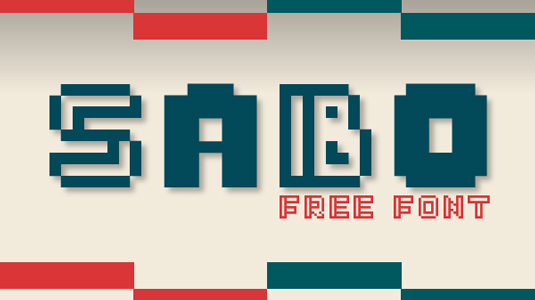
46 free retro fonts
Add age, texture and depth to your designs with the best free retro fonts that won't cost you a penny.
Great free retro fonts have the ability to transport audiences back in time. With the right font, you can add age, texture and depth to your designs so it's crucial to choose a typeface that reflects the era you're representing.
In this post, we've chosen some of our favourite retro-style font designs. They won't cost you a penny but will add untold value to your retro projects.
Article continues below01. Mexcellent Font Family
Mexcellent Font Family was inspired by the 1968 Mexico Olympics. It's a trilinear display font that sings of the era and packs a visual punch. The updated version has redrawn glyphs, better spacing, better kerning, more languages, math symbols, fractions, and more. Get the regular and 3D styles for free commercial and personal use.
02. Stiff Staff
This decorative free font takes us back to Germany or Russia at the beginning of the 20th century. Designer Borislav Petrovs' use of geometry channels constructivism and austere industrial modernism, whilst still feeling somewhat video game-ish.
03. Gradientico
If you're keen to nail the look of early 1990s desktop publishing, give Vladimir Nikolic's Gradientico a try. It's a fine-looking serif, bought to life by a splendidly scratchy halftone gradient that looks for all the world like it's just inched out of a dot matrix printer after a long session with Pagemaker. It comes in regular and italic versions, and it's free both for commercial and personal use.
04. Haike
Remember when computer fonts were supposed to look like this? Inspired by Moore Computer – a 1968 font designed for use with automatic cheque and document reading equipment – Haike, by Otto Maurer Design, is a fabulously retro vision of the future and comes in nine weights for all manner of uses. It's free for personal use; for commercial use you'll need a licensed version, which comes with extra Opentype features.
05. Haarlem Deco
Haarlem Deco is described by its creators, Fontdation, as a classic-retro-vintage-all-caps-semi-condensed-sans-serif typeface with an art-deco touch. Inspired by old Euro-American signage and advertising, it's available as a free demo version with limited characters; you can get the full version with italics, multilingual characters and more from Fontdation for just £13.
06. West Side
Inspired by handmade poster designs and illustrations from the 1980s, with maybe just a hint of Saul Bass, West Side is a block-styled, handcrafted display font created by Artimasa Studio. It's big and bold with sharp edges, and is free for both personal and commercial use.
07. Palm Canyon Drive
You can get a free sample of premium monoline script Palm Canyon Drive – designed by Amy Hood, co-founder of Hoodzpah Design Co, in conjunction with retro and vintage design elements crafter RetroSupply – by signing up to the RetroSupply newsletter. (You'll get a bunch of other retro and vintage-themed design elements, too.)
Inspired by mid-century Southern California, the retro font is perfect for adding some old-school west coast goodness to your designs. It’s as comfortable on a Tikki bar matchbook cover as it is on a Hollywood movie poster, and the sample weights are free for personal use.
08. Billionaire Medium Grunge
For an art deco look that's pleasingly rough around the edges, Billionaire Medium Grunge is just the ticket. It's just one of six fonts that make up the full Billionaire typeface by JumboDesign, and you can pick it up for free from Deeezy to give your work a bit of slightly faded sophistication.
09. Noir
Add a touch of elegance and style to your designs with this beautiful retro font Noir, by designer Matthias Guggisberg.
10. Frontage Condensed (Outline)
Created by Swiss art director Juri Zaech, Frontage Condensed is a beautiful family of retro fonts. Perfect for any vintage-style designs, Frontage Condensed is available in a variety of weights, one of which, Outline, Zaech offers as a free download.
11. Say It Fat
Designer Timo Titzmann is behind free retro font Say It Fat. A bold, slab typeface, Say It Fat is great for creating eye-catching retro-style posters and much more.
26. White Rabbit
Inspired by eras gone by, this is one of the coolest free retro fonts we've seen in a while. Developed by Alice Creative, this typeface is available free for personal use, with donations to the author, as always, greatfully received.